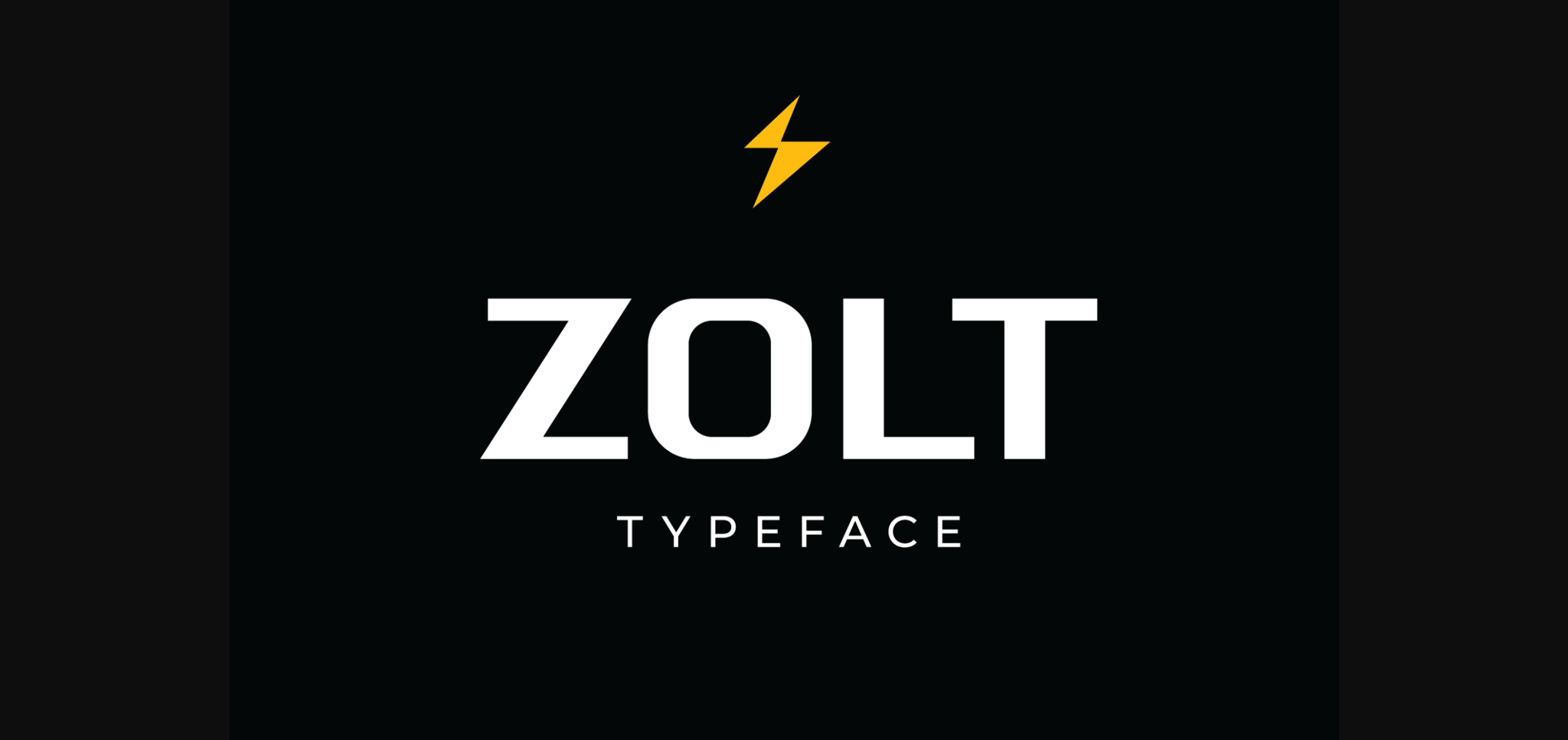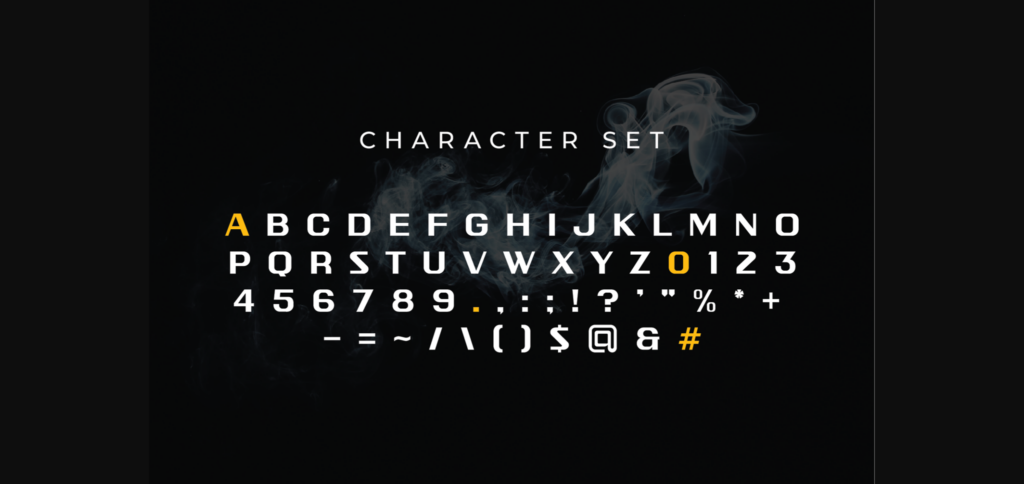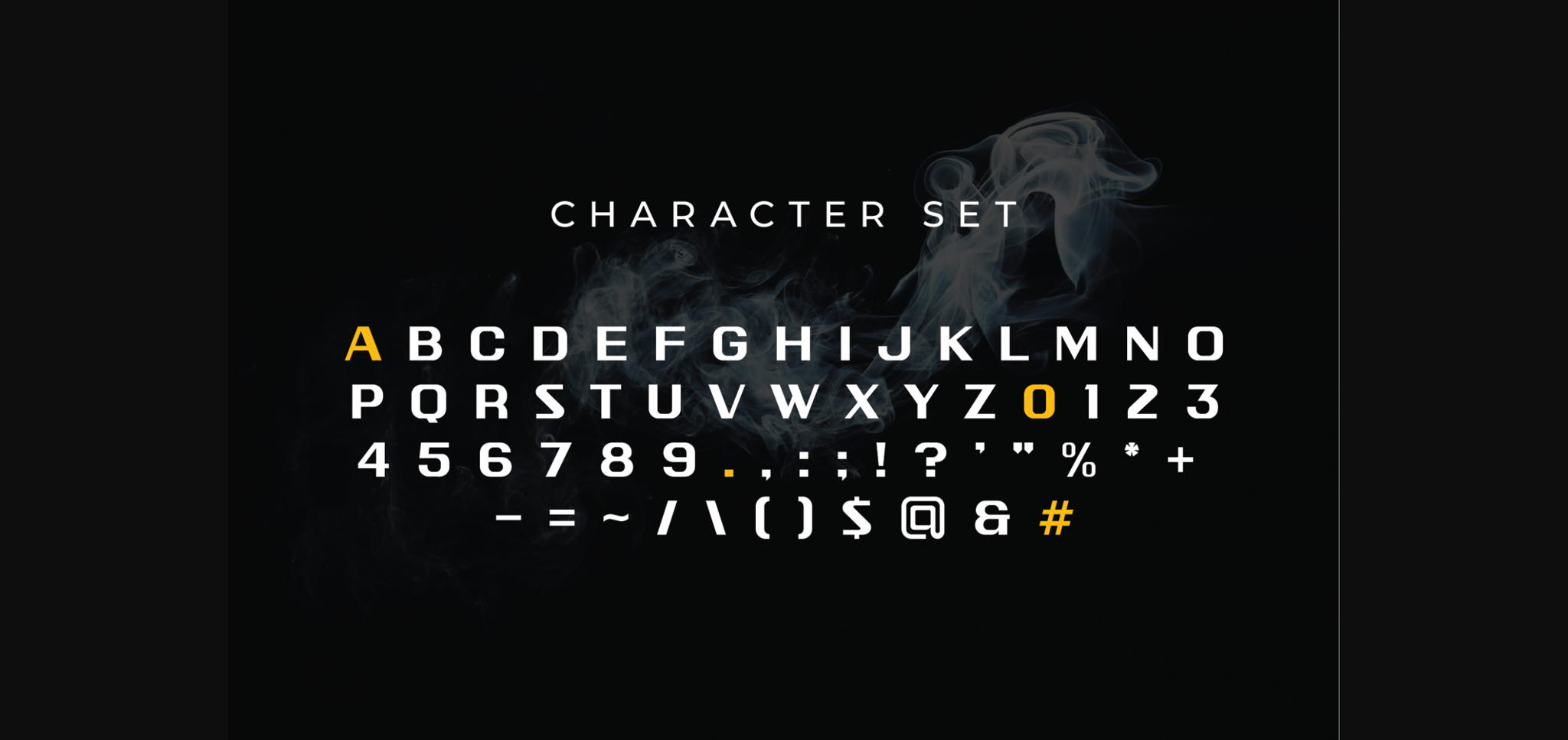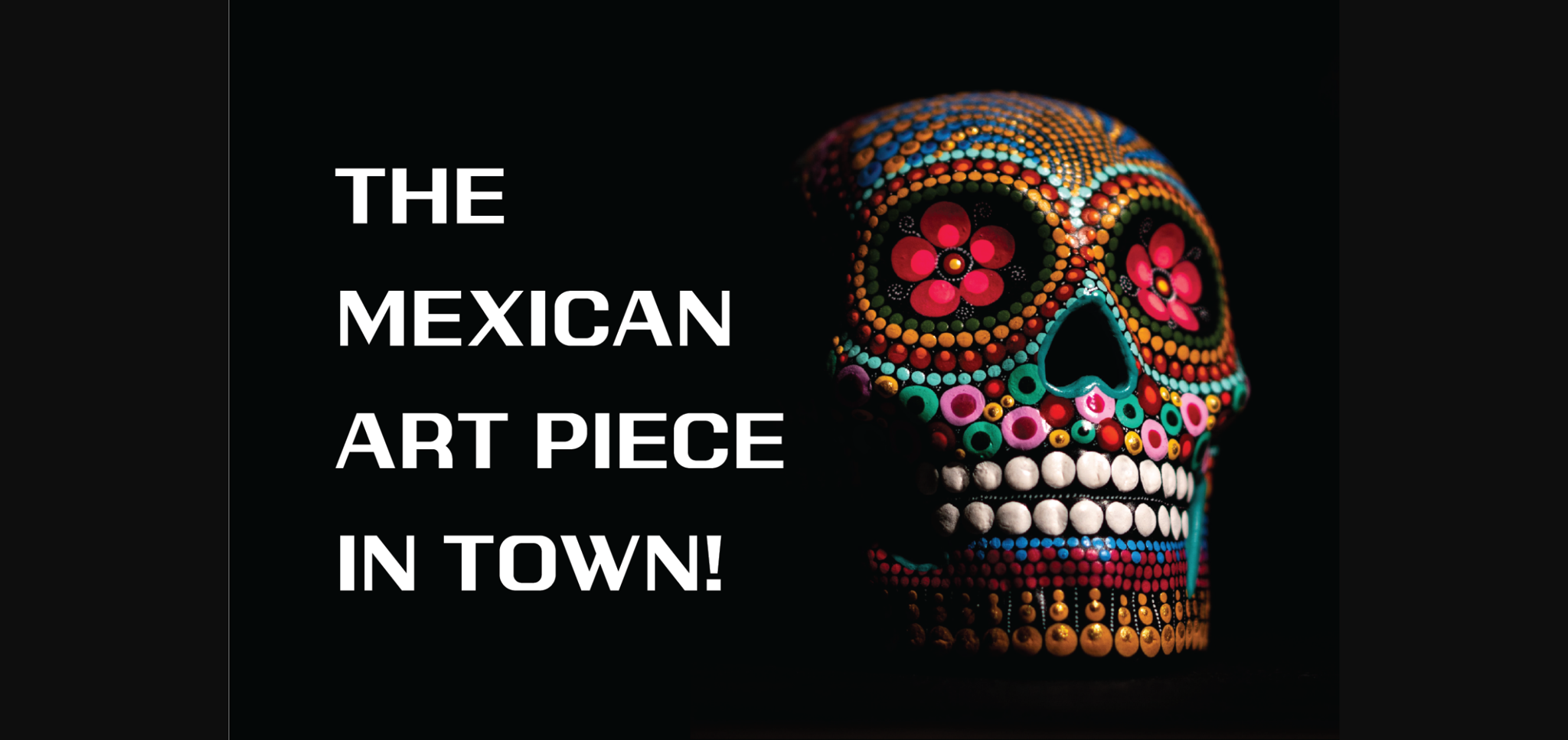
About Zolt Font
Zolt is a clean futuristic font, that features a bold yet sophisticated appearance. This tech font has slightly extended glyphs created with bold and thin lines that will add uniqueness to your design. This modern tech font is great for your projects like logo designs, social media posts, banners, posters, headers, and so on.